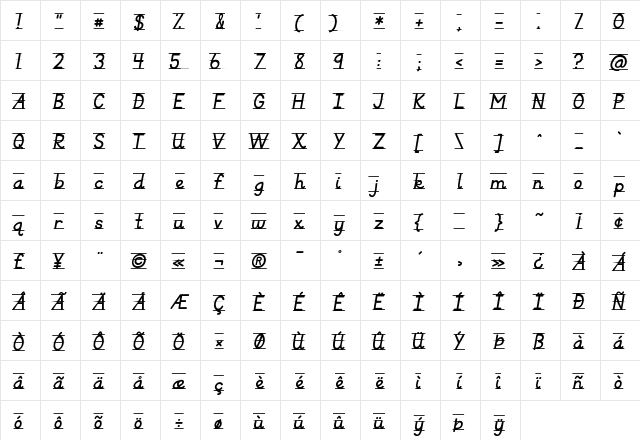
KG Primary Italics Lined Regular
| Foundry | Kimberly Geswein |
| Designer | Kimberly Geswein |
Design Context for KG Primary Italics Lined Typeface
KG Primary Italics Lined is a composed and adaptable typeface that performs quietly and consistently across a wide range of design contexts. Its italic angle brings a sense of urgency and motion to the letterforms.
Pro Tip: Try KG Primary Italics Lined for annotation and caption copy alongside an upright companion — the contrast in angle creates a dynamic but ordered typographic system.